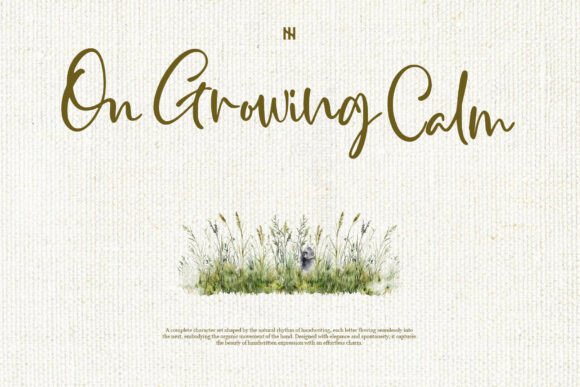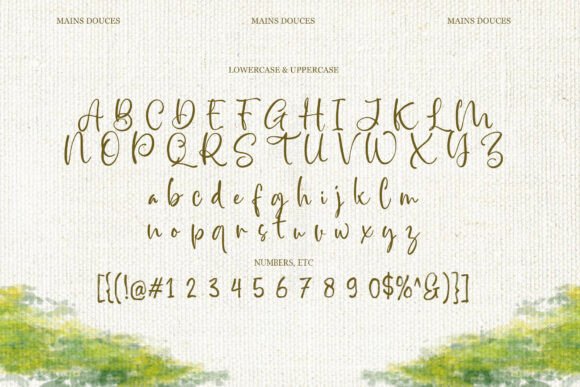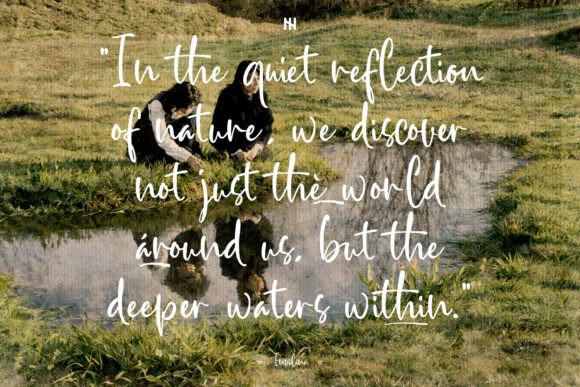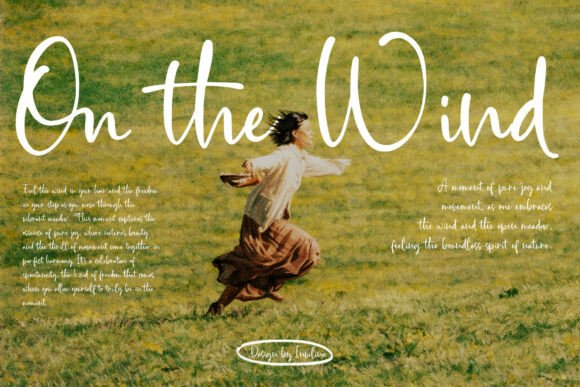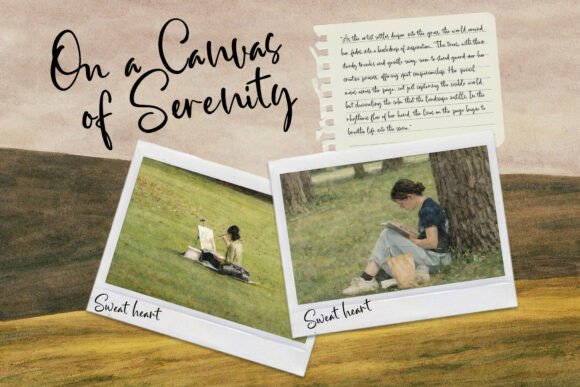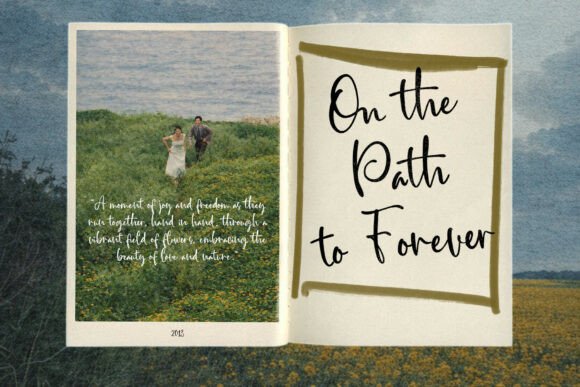
Introduction to Mains Douces Font
As designers, we’ve all been there – staring at a blank canvas, trying to find the perfect words to bring a creative project to life. The cursor blinks, and suddenly, the right phrase appears, setting the tone for the entire design. That’s exactly what the Mains Douces Font does – it adds a touch of serenity to your words, making them feel more authentic and heartfelt.
With its soft, handwritten script, Mains Douces Font is more than just a design resource – it’s an emotional connection to the quiet landscapes and gentle moments that inspire us. Whether you’re working on a branding project, crafting a wedding invitation, or simply seeking a natural, effortless feel for your words, this font is the perfect companion. Download it for free and experience the beauty of high-quality typography that elevates your design to the next level.
Key Features of Mains Douces Font
- Perfect for use in various design contexts, including branding, typography, and creative projects requiring a touch of elegance.
Honest Review: Mains Douces Font
I recently had the chance to work with the Mains Douces Font, and I must say it’s been a pleasant experience. As a designer, I’m always on the lookout for high-quality design resources that can elevate my creative projects.
One of the standout features of the Mains Douces Font is its high quality and versatility. It’s a great addition to any design project, and its transparent background makes it easy to work with. The font is perfect for creating visually appealing designs that require a touch of elegance and sophistication.
- Transparent background for easy editing
- Great for designs that require elegance and sophistication
- ⚠️ Limited character set, may not be suitable for complex projects
- ⚠️ May require additional styling for certain design elements
Overall, I’m impressed with the Mains Douces Font. While it may have some limitations, its high quality and versatility make it a great addition to any design resource library. If you’re looking for a font that can elevate your creative projects, I’d definitely recommend giving it a try.
How to Use Mains Douces Font
Mains Douces Font is a high-quality design resource that offers a unique, elegant aesthetic perfect for creative projects. With its transparent background, this font can be easily integrated into various design applications.
Tips for Getting the Most Out of Mains Douces Font
To maximize the potential of this font, consider the following tips:
- Combine Mains Douces Font with other design elements to create a unique visual identity.
- Use the font’s transparent background to create layered, dimensional designs.
Common Use Cases for Mains Douces Font
This font is ideal for:
- Business cards and marketing materials.
- Personal branding and logo design.
Comparison to Mains Douces Font: While Mains Douces Font has a more elegant and refined feel, Lato is more modern and versatile, making it a better choice for a wide range of design projects.
Merriweather is a classic serif font that is perfect for use in print and digital design projects. It has a timeless and elegant feel that is ideal for use in creative projects that require a high level of sophistication.
Merriweather is a high-quality font that is available for free download and is widely used in the design community. It is a great alternative to Mains Douces Font for designers who want a classic and refined look.
Comparison to Mains Douces Font: While Mains Douces Font has a more modern feel, Merriweather is a more traditional and elegant font that is perfect for use in projects that require a touch of sophistication.
By incorporating Mains Douces Font into your next project, you’ll be able to elevate your design to the next level. Its unique characteristics and aesthetic appeal make it an excellent addition to any design portfolio. Don’t hesitate to download Mains Douces Font today and unlock its full potential. Experience the difference it can make in your creative endeavors and discover why it’s become a favorite among designers worldwide.